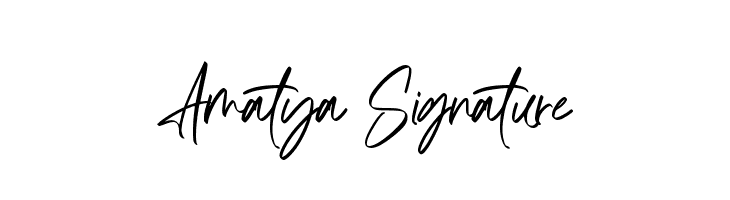
A modern, elegant handwritten font with fluid, dynamic strokes.
A cursive, elegant font with a flowing, handwritten style.
A graceful script font with flowing, connected strokes and decorative flourishes.
A lively and expressive handwritten script font with a dynamic and artistic style.
An elegant and artistic font with elongated letterforms and decorative elements.
A lively and elegant script font with dynamic curves and fluidity.
A flowing, cursive font with elegant, connected strokes.
A bold, energetic script font with a fluid, handwritten style.
A playful and whimsical script font with flowing, interconnected letters.
A playful and elegant handwritten script font with flowing strokes.